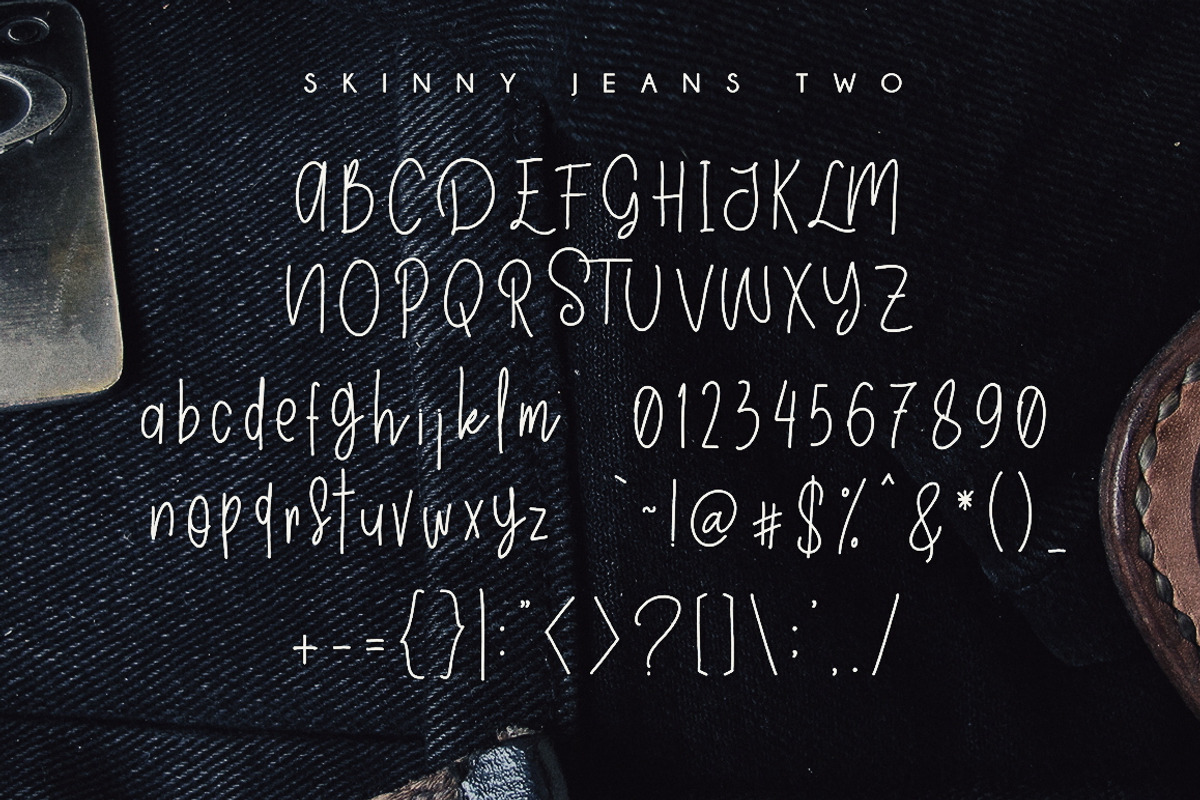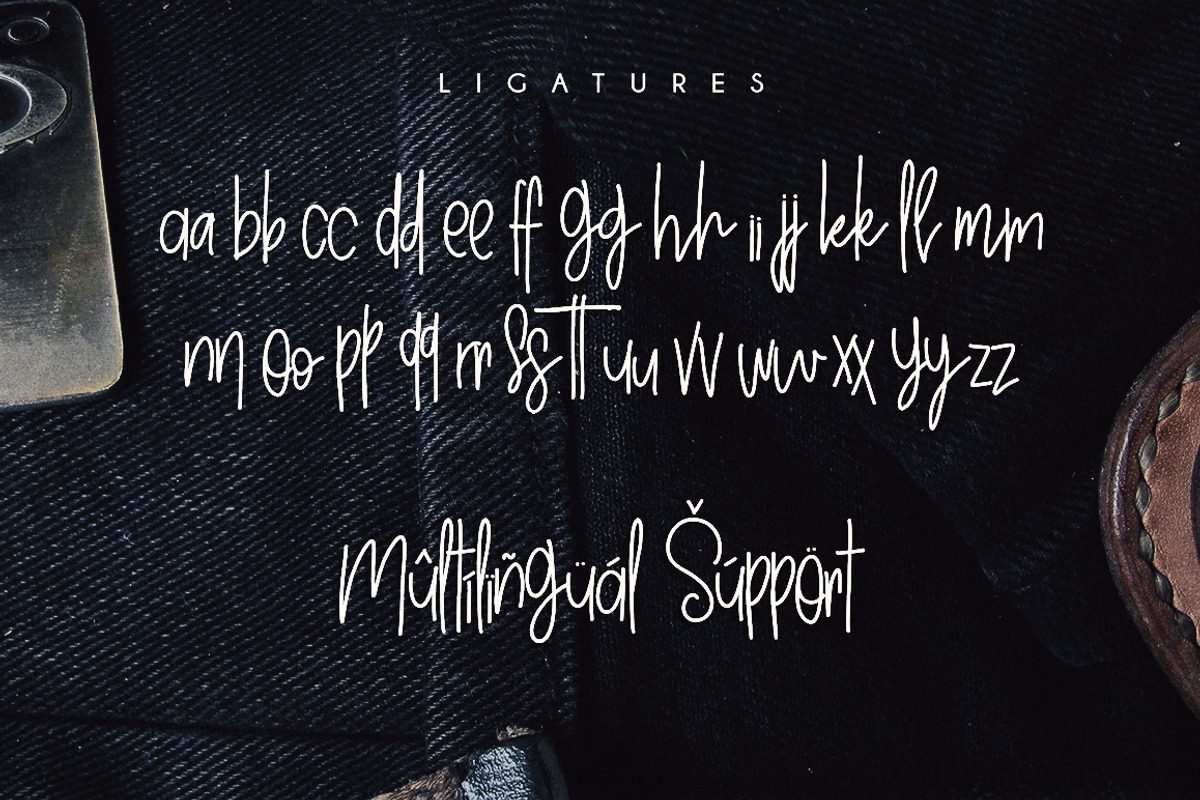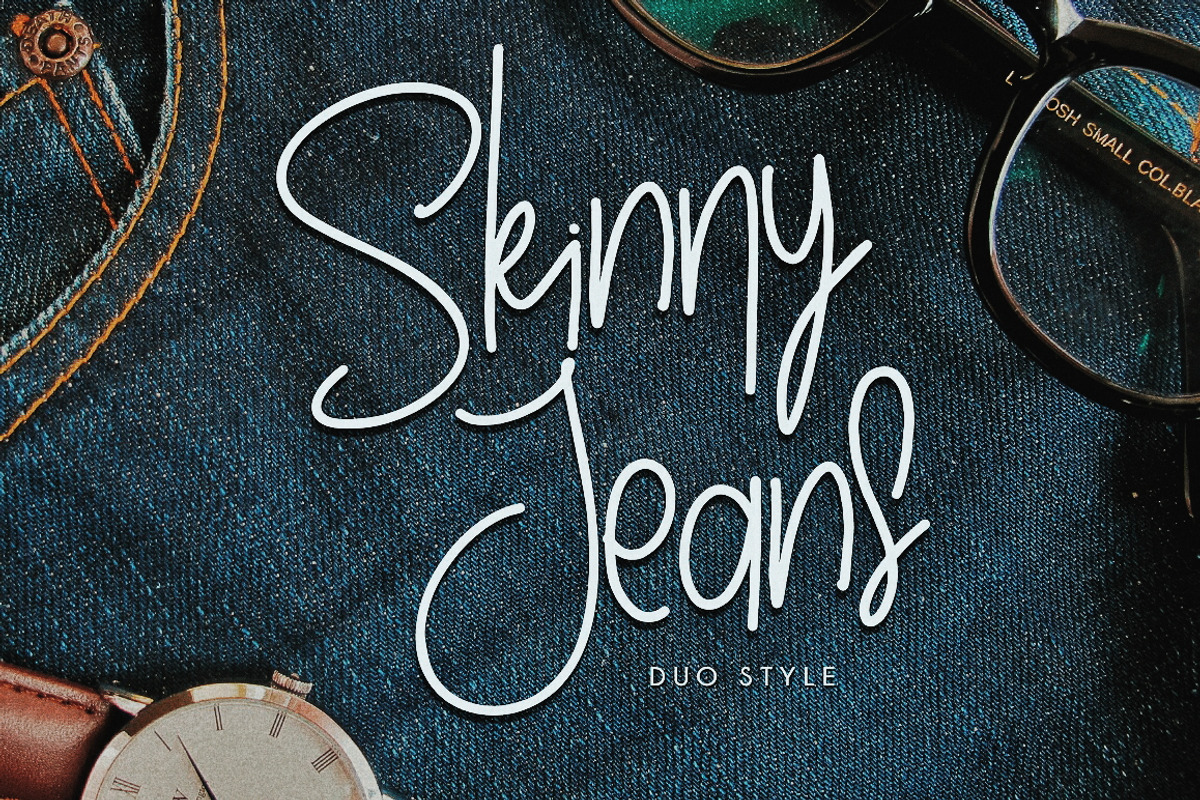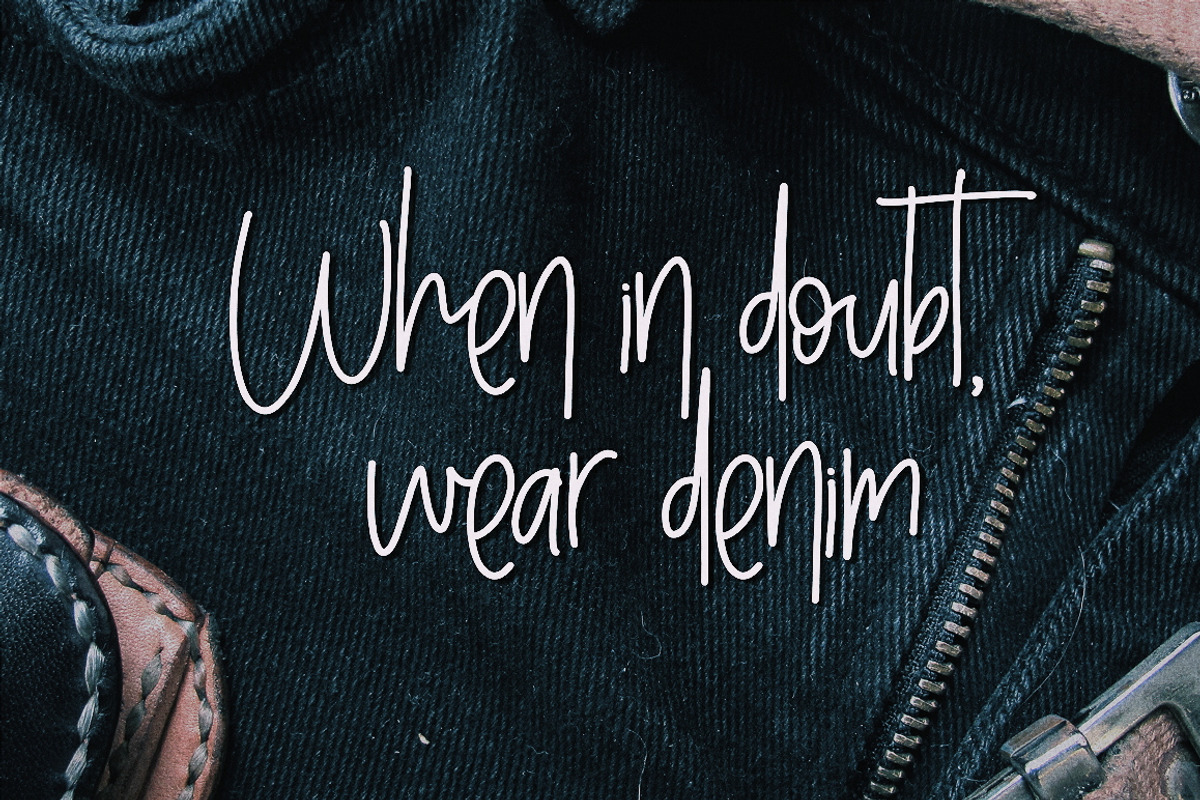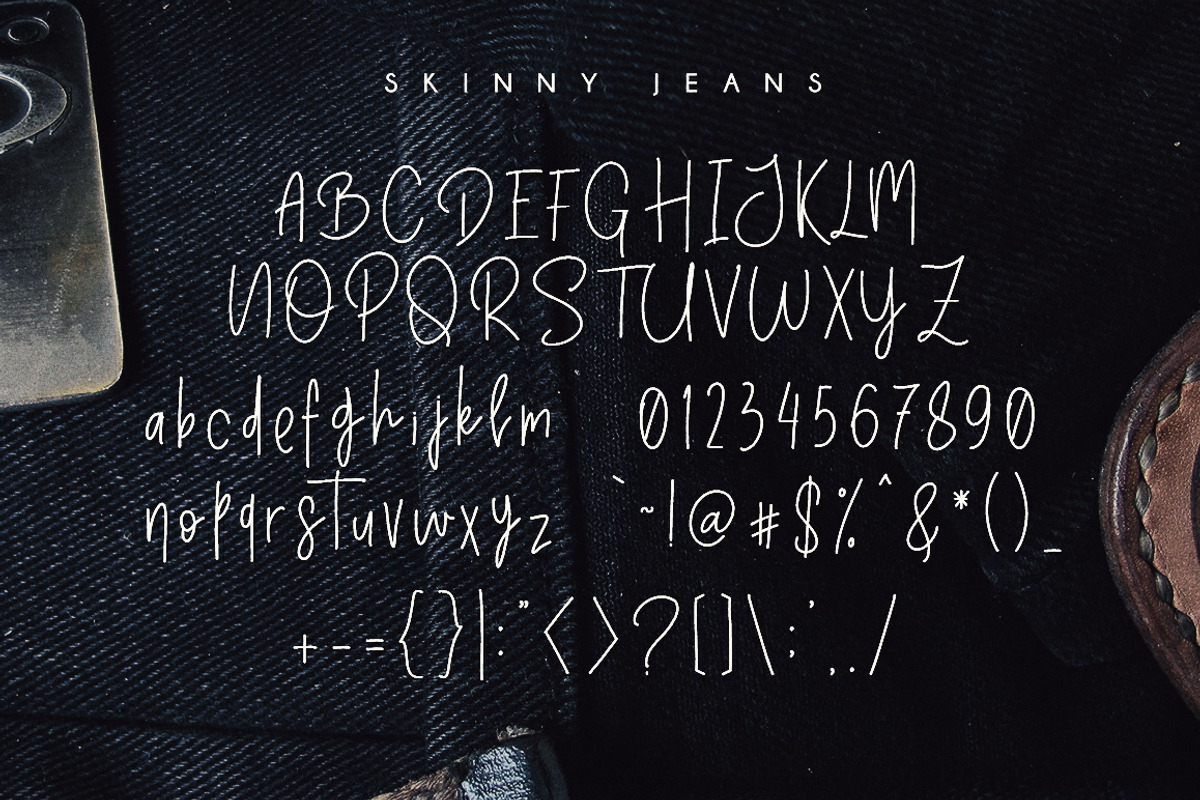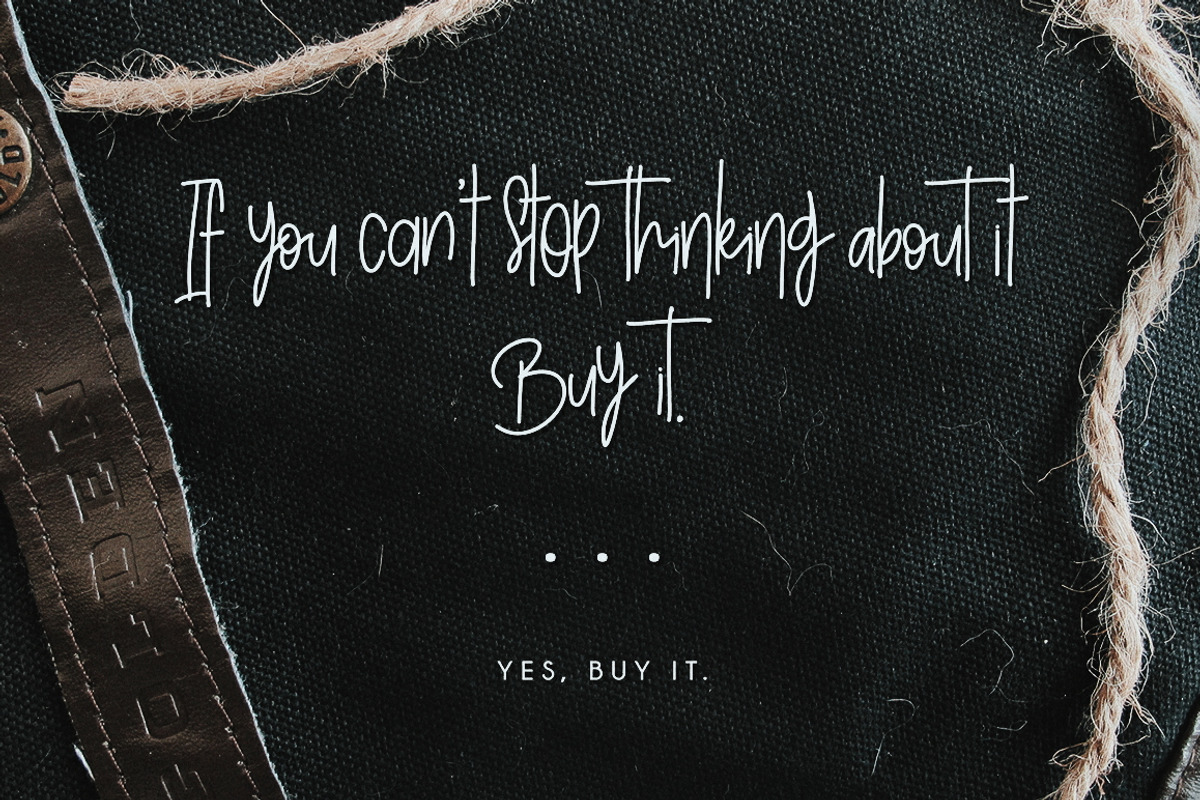
Skinny Jeans fashion logo font
Skinny Jeans fashion logo font by Ian Irwanwismoyo is a font selected for branding, posters, packaging, typography.
- It comes with 2 different style with the same feel and size, so you can easily mix and match both of them as an alternative characters to fu
- Contains Uppercase, Lowercase, Numbers, Punctuations, Ligatures, and Standard Multilingual Support.
- Skinny Jeans Regular
- Skinny Jeans Two Regular
Why Skinny Jeans fashion logo font is worth a look
Skinny Jeans fashion logo font by Ian Irwanwismoyo fits naturally into Branding, posters, packaging, typography.